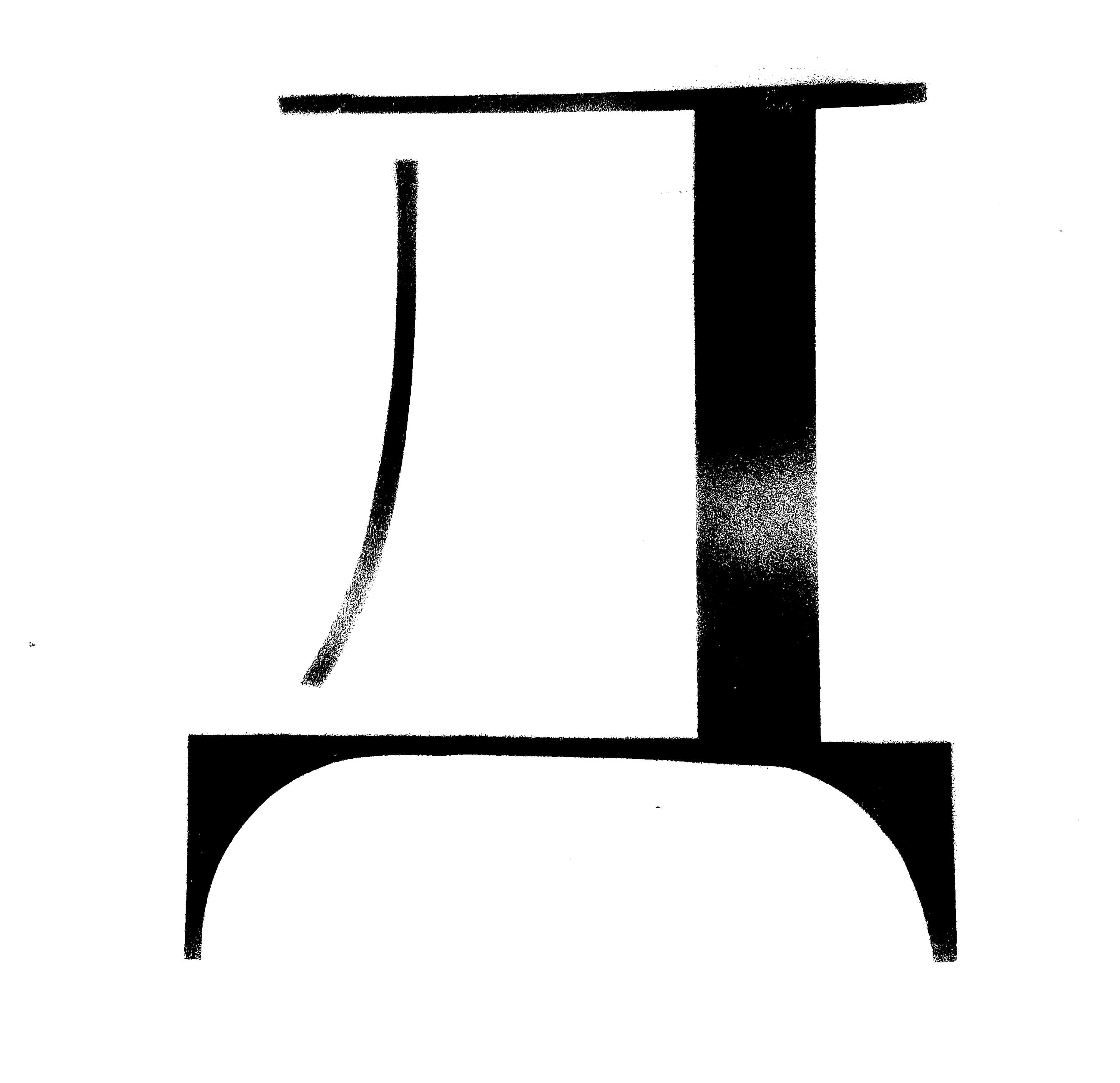
Sharp Serif Display PanEuro
Sharp Serif Display, the display counterpart to Sharp Serif takes a radical approach to optical size: combining the abstract constructivist forms of stencil designs with the high-contrast hairline forms of more standard display serif typography. Like so many other vernacular typographic styles of the past, stencil designs came from a practical need. In the digital era, the utilitarian demands of the genre (quick application of lettering onto large dimensional objects of varied surfaces and textures) is less relevant, but the forms that resulted have earned their place in the lexicon of contemporary typographic style.
Sharp Serif Display is in dialogue with these charming and irreverent formulations, as well as a more contemporaneous approach to the stenciled genre as pioneered by Paul Barnes with Dala Floda, in which contrast in serif typography is simply dialed to the point at which the hairlines disappear entirely. As a display counterpart to our quintessential textface Sharp Serif, Sharp Serif Display brings a hefty dose of flare to the family, which can peacock display settings all on its own, or serve as a chic counterpart to its more understated textface mate.
Type Director: Lucas Sharp | Designers: My-Lan Thuong & Léna Le Pommelet | Engineer: Calvin Kwok | Kerning: Igino Marini & Lucas Sharp